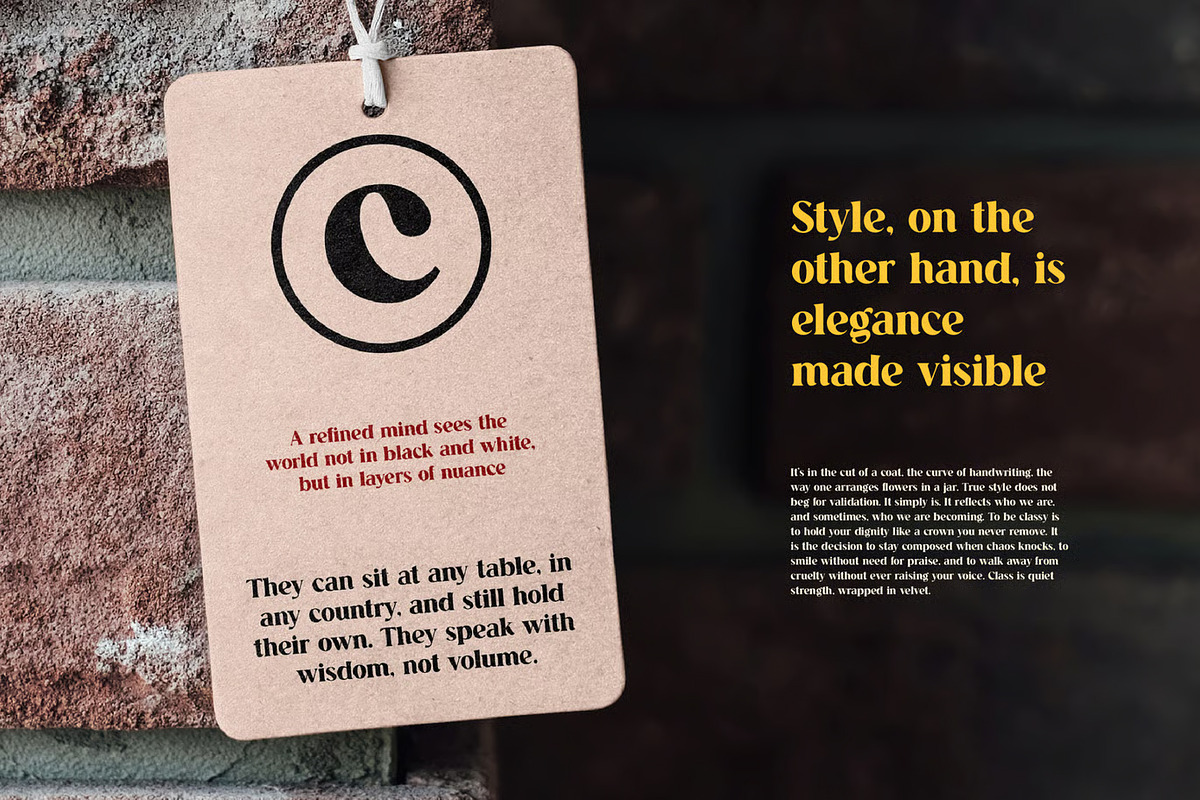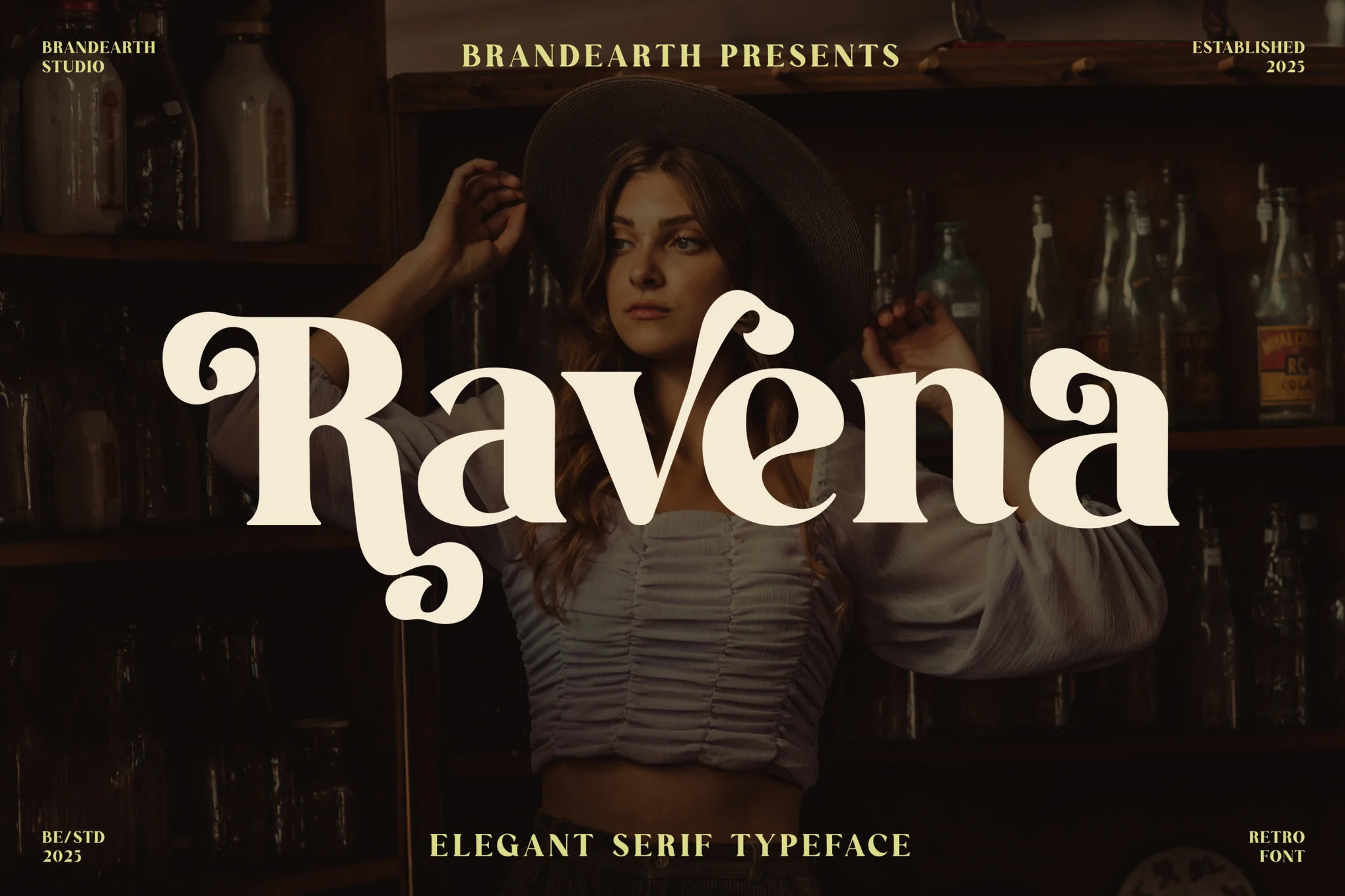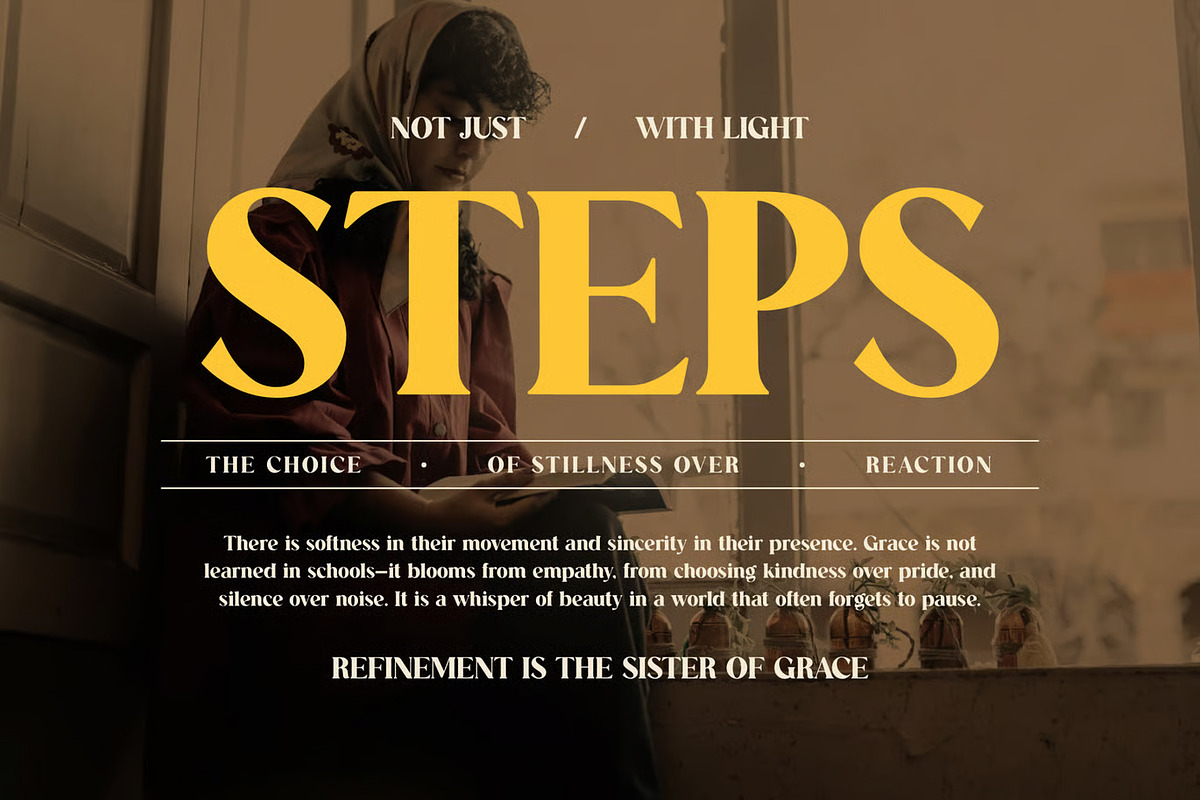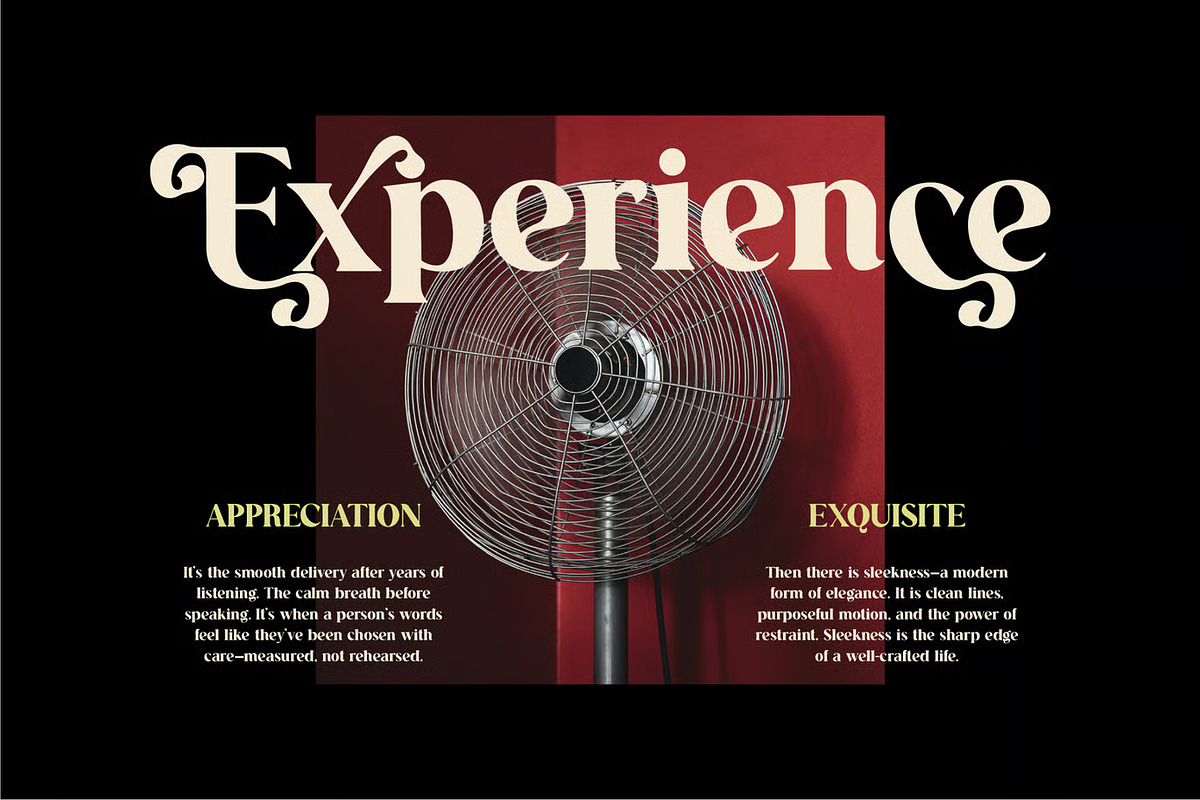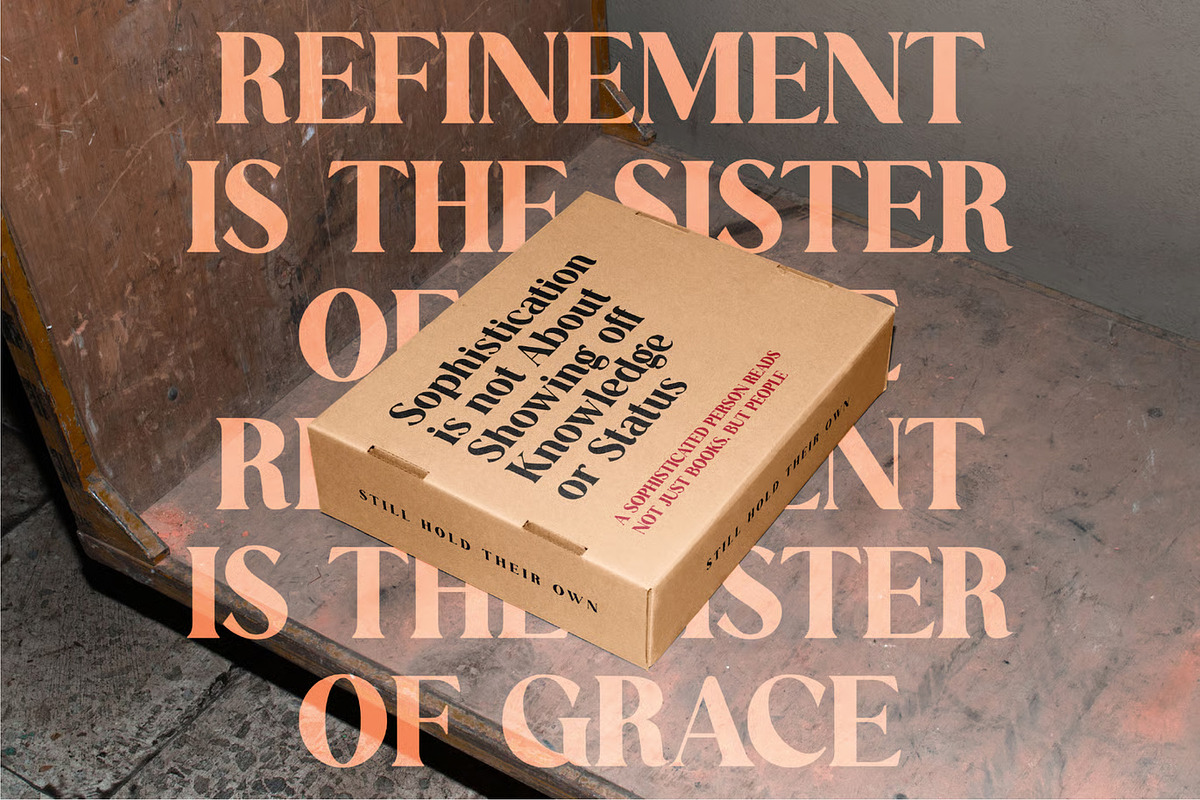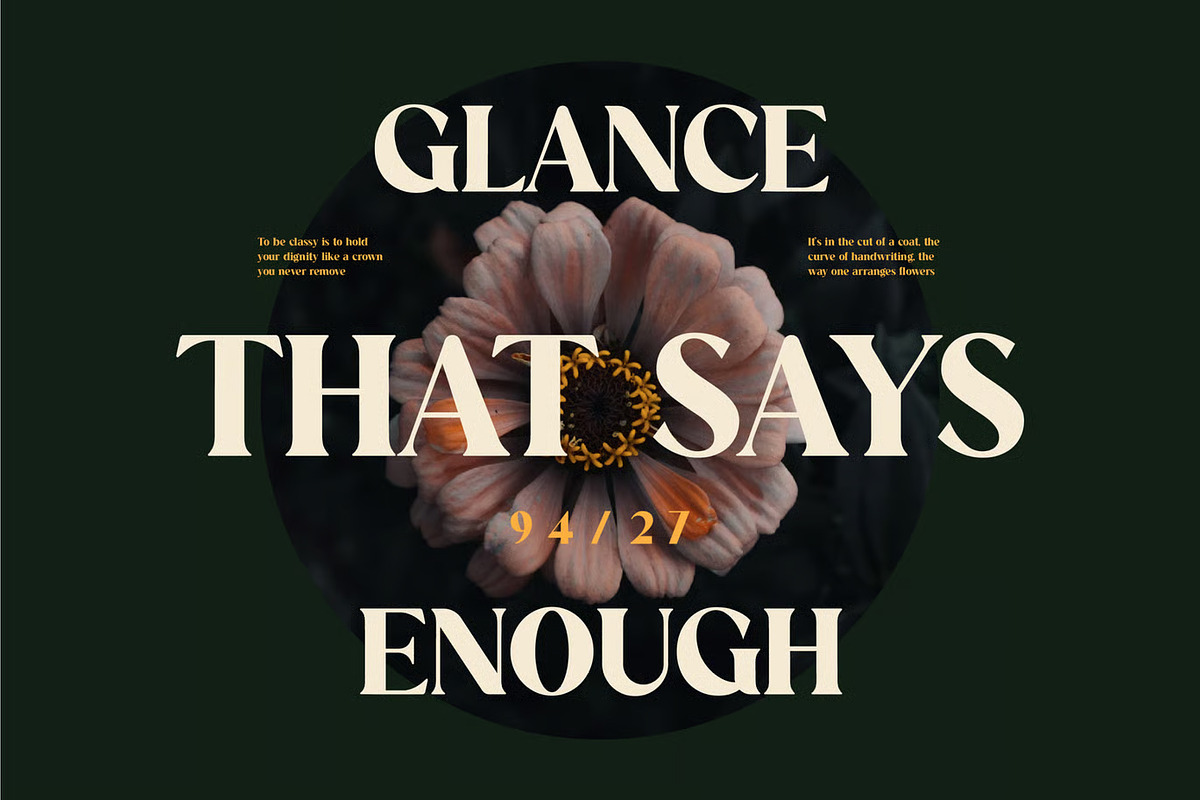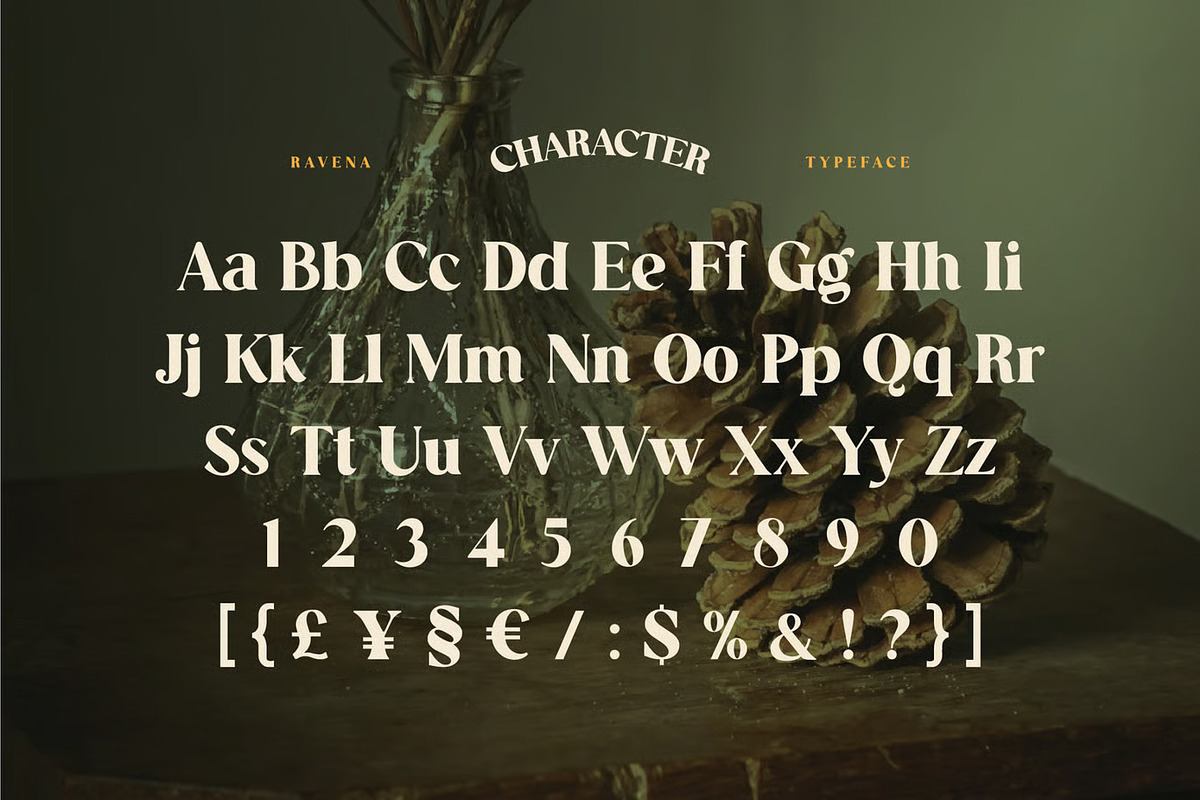
Ravena – Elegant Retro Serif Font
Ravena is an elegant serif typeface that embodies modern sophistication and timeless class. Built for the modern era of luxury and editorial branding, it captures a sense of grace, authority, and refined personality in every letterform. Its clean design, bold presence, and refined details make it a great choice for luxury branding, wedding invitations, editorial layouts, and fashion-forward designs.
The letterforms in Ravena are crafted with dramatic curls and confident strokes that give the typeface a stylish and commanding presence. It features a retro-inspired elegance that is perfect for boutique identity, fashion magazines, invitation cards, and upscale menus.
With its refined charm and versatile readability, Ravena bridges the gap between vintage character and modern sophistication. It provides grace and authority while remaining highly legible, making it ideal for logos, headlines, and stylish visual identities that require a touch of class and personality.
Main Features
Ligatures & Alternate
Numeral & Punctuations
Suitable For: elegant logo, wedding design, luxury packaging, modern branding, editorial layout, fashion magazine, invitation card, upscale menu, minimal poster, beauty brand, product label, portfolio showcase, chic blog header, boutique identity, fine art project, custom typography, classy signage, artistic layout, print design, and feminine branding.